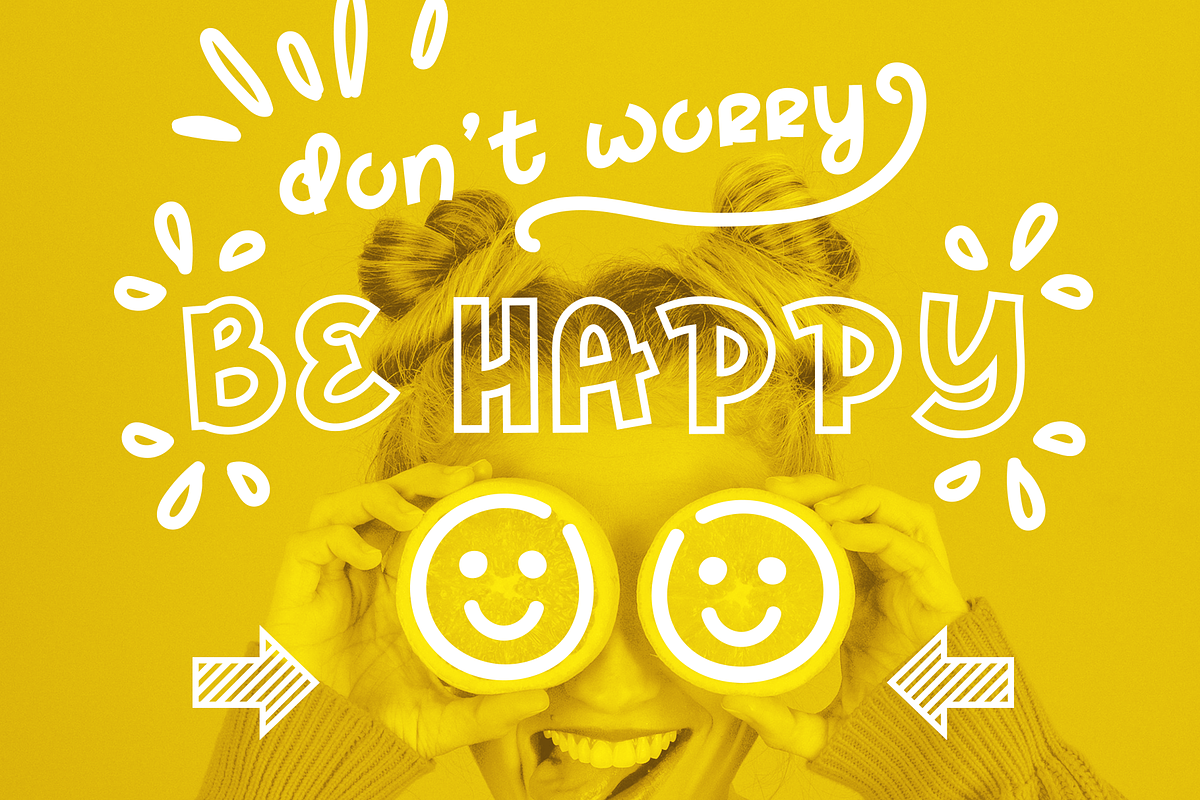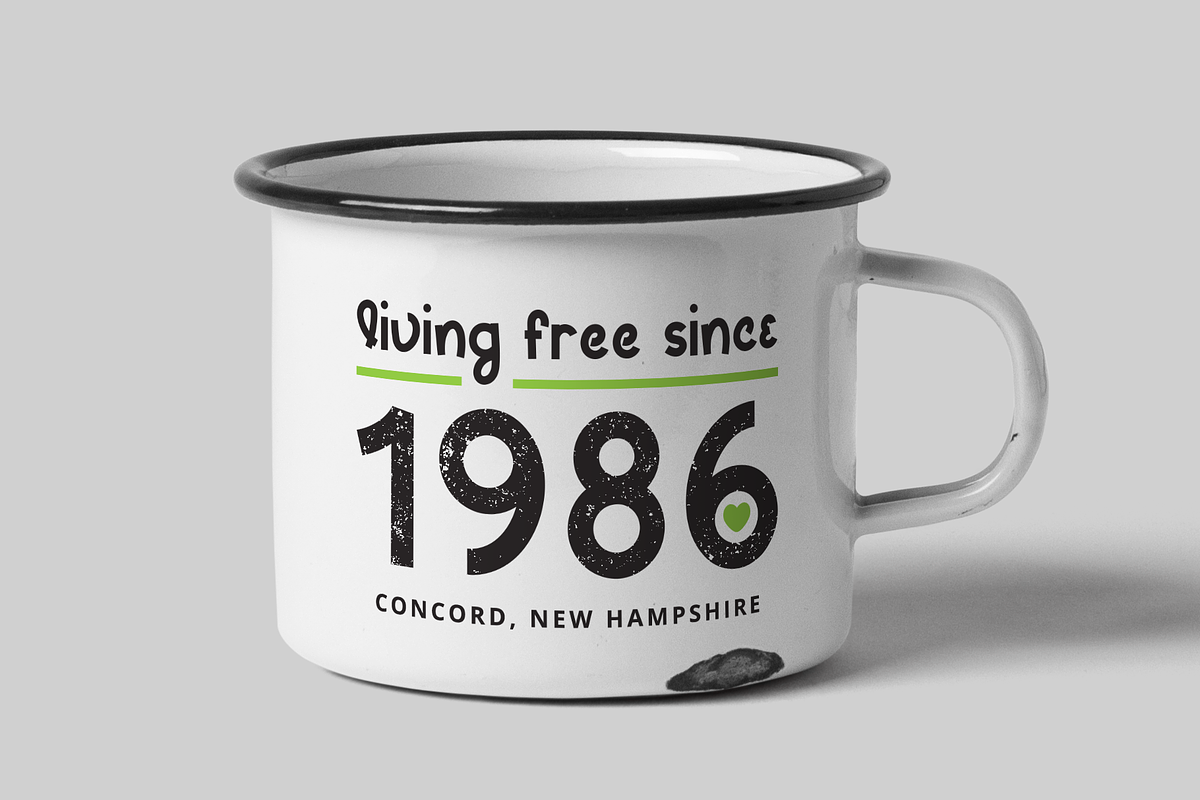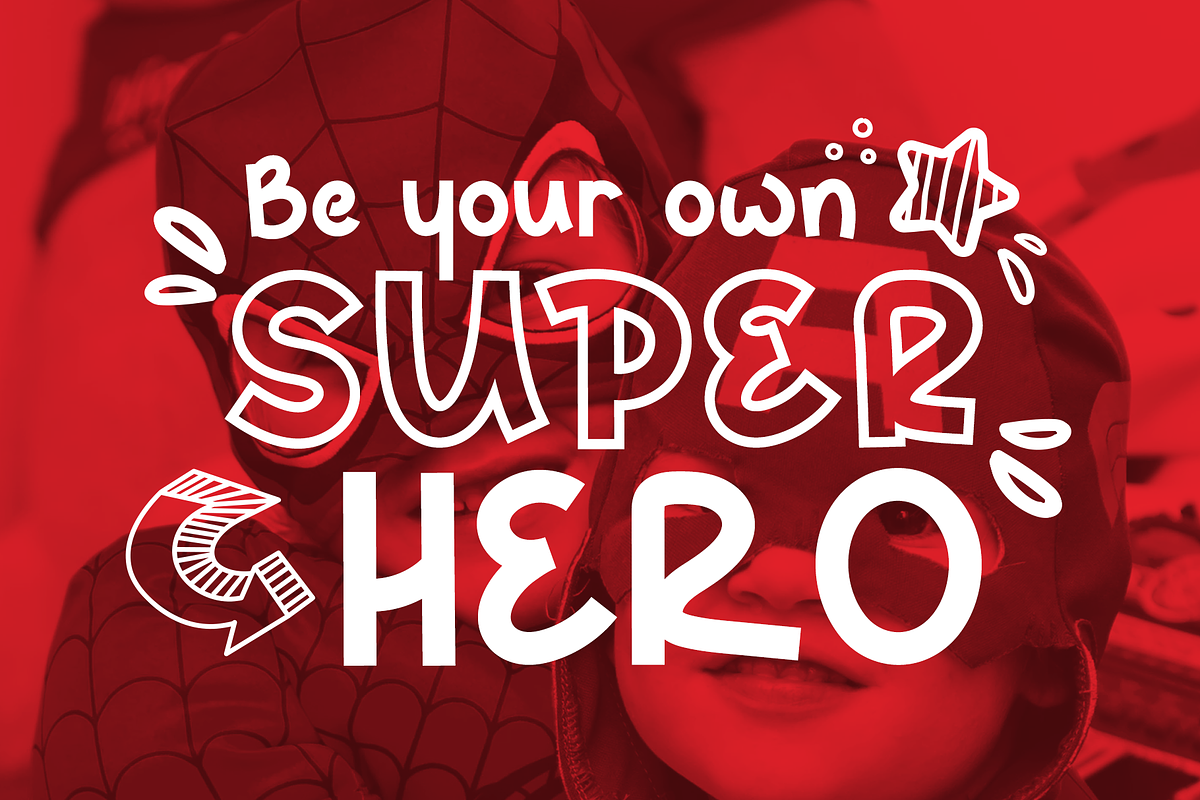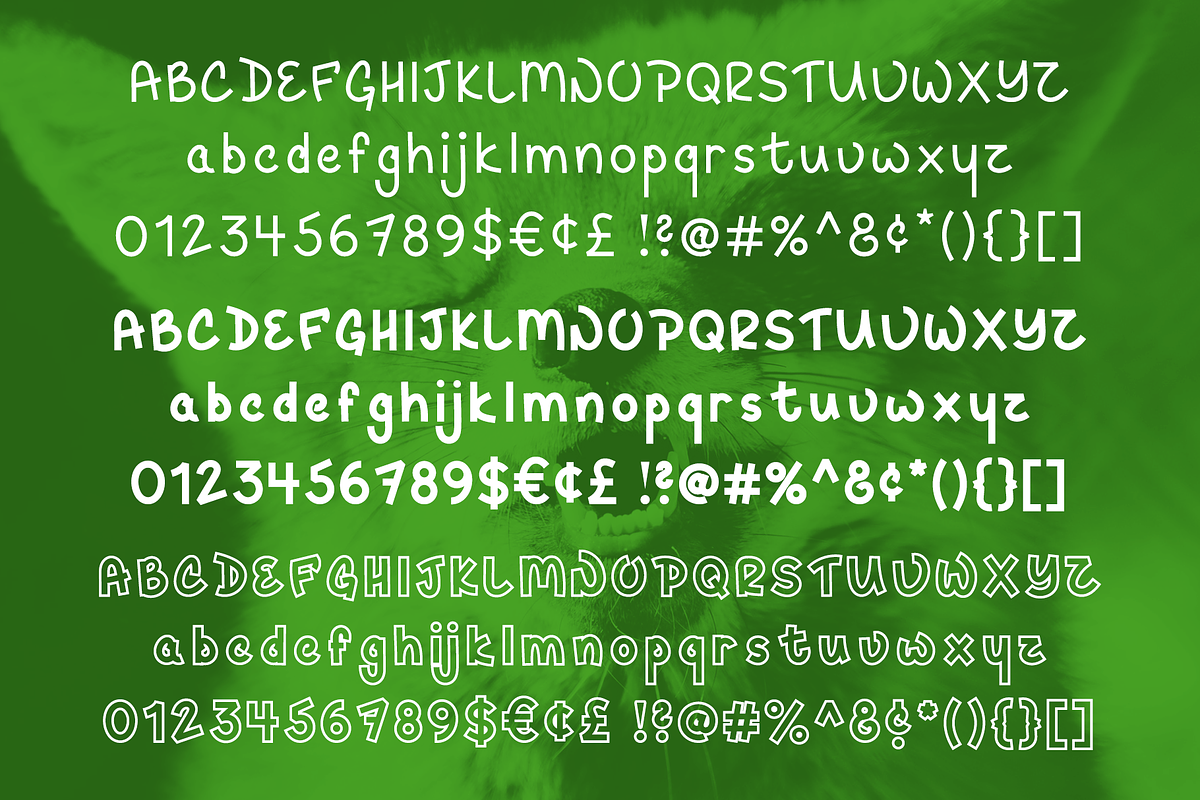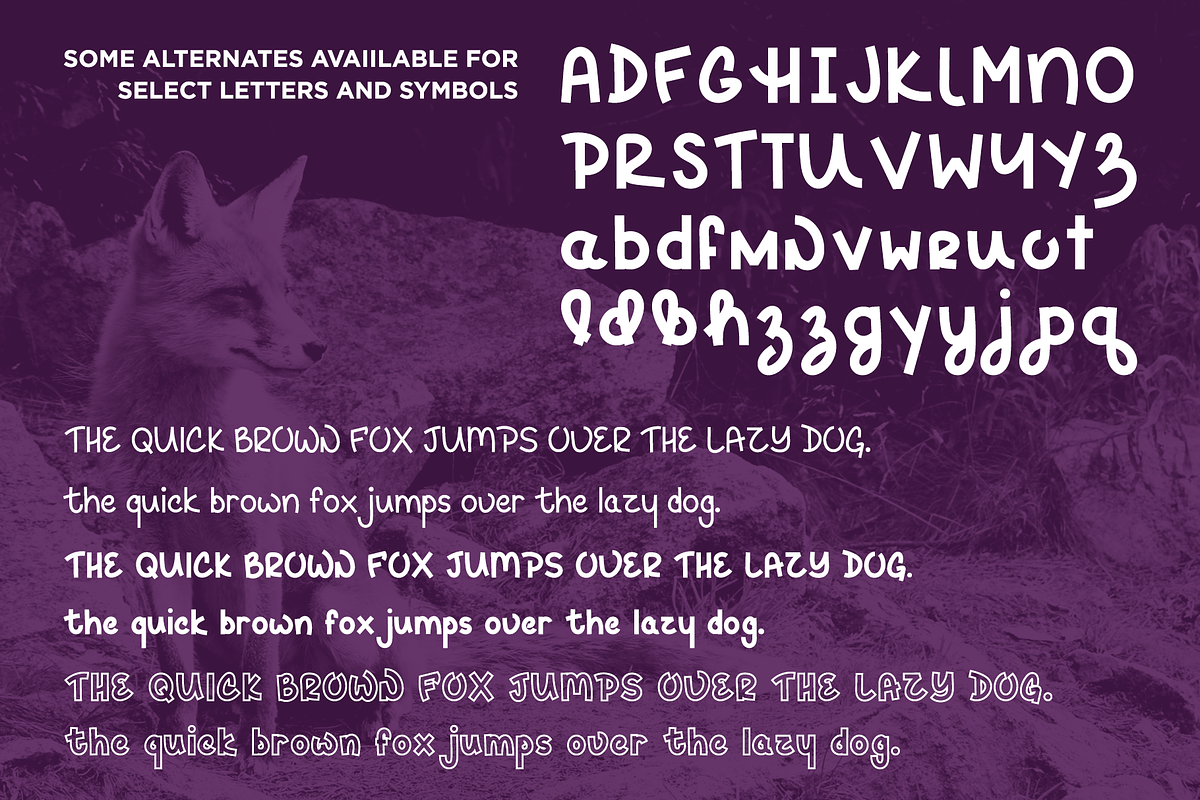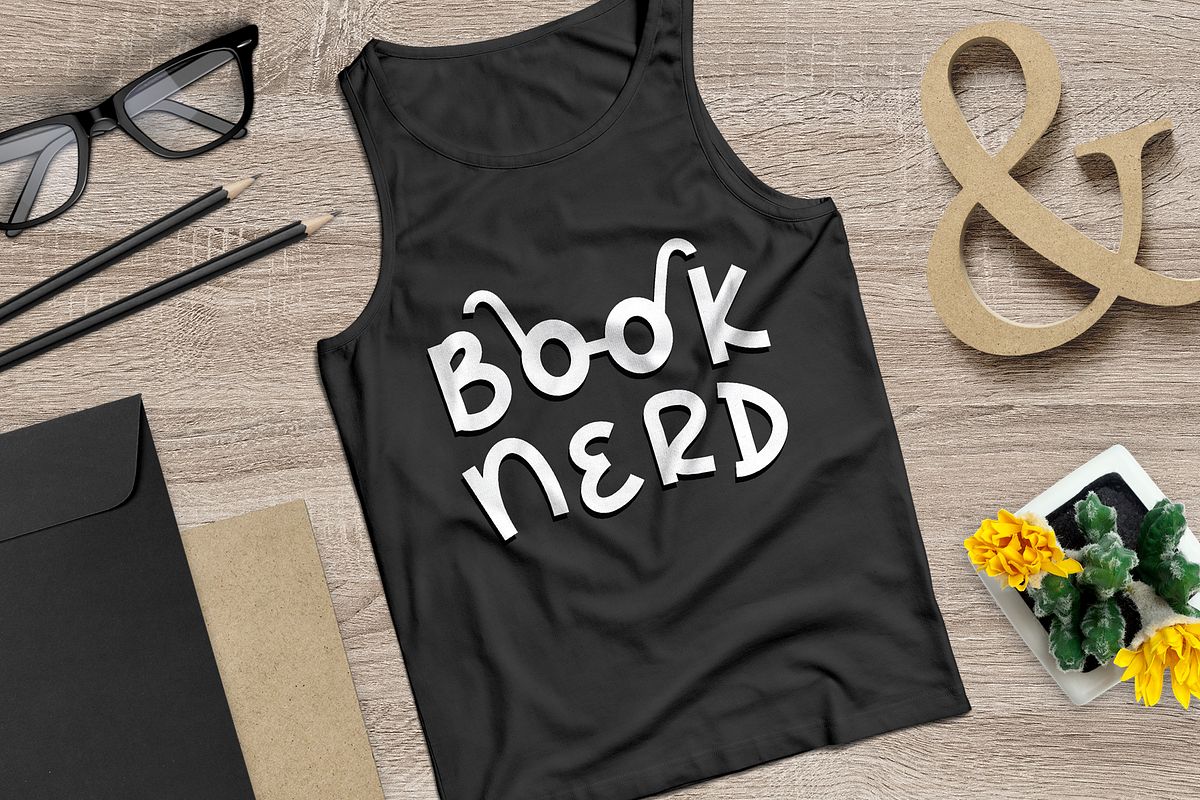
Hey Fox Font Trio + BONUS
Introducing HEY FOX, a handmade font trio with over 90+ BONUS cartoon arrow graphic elements to alter and edit and play with as needed! Regular, Bold, and Outline font weights are included in the Hey Fox font set. All three font weights include uppercase, lowercase, punctuation, and numbers. This fun and friendly handwritten typeface can be used in personal and commercial projects. Some letters and punctuation and symbols include alternatives which can be accessed using glyphs in programs like Adobe Photoshop and Illustrator.
- Regular, Bold, and Outline font weights are included in the Hey Fox font set.
- All three font weights include uppercase, lowercase, punctuation, and numbers.
- Some letters and punctuation and symbols include alternatives which can be accessed using glyphs in programs like Adobe Photoshop and Illust
- Hey Fox Regular
- Hey Fox Bold
- Hey Fox Outline